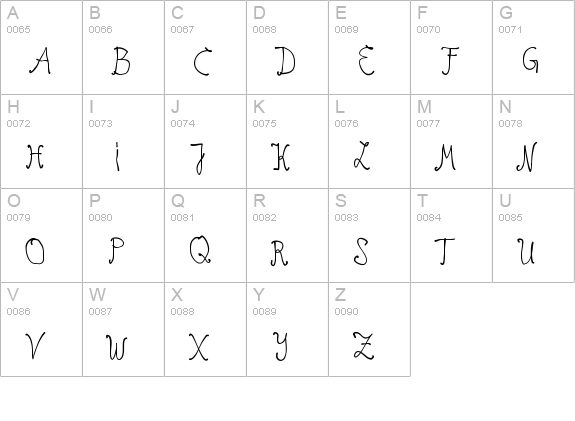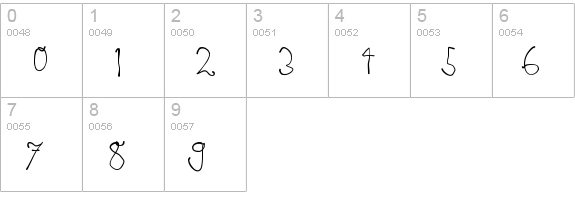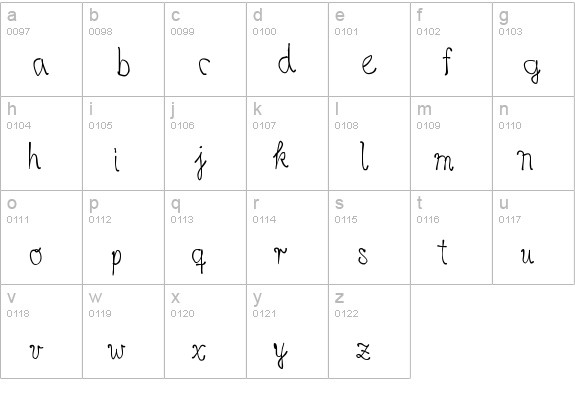
HVD Age11 Font Details
Introducing HVD Age11 font, a modern and versatile typeface that exudes elegance and sophistication. With its sleek lines and contemporary design, this font is perfect for a wide range of projects, from branding to editorial design. The HVD Age11 font is meticulously crafted to ensure clarity and readability, making it suitable for both print and digital applications. The best part? HVD Age11 font is available for free download at FontsMarket.com. Now you can elevate your designs without breaking the bank. Don't miss out on this opportunity to add a touch of class to your projects with the HVD Age11 font. Download it today and let your creativity soar!